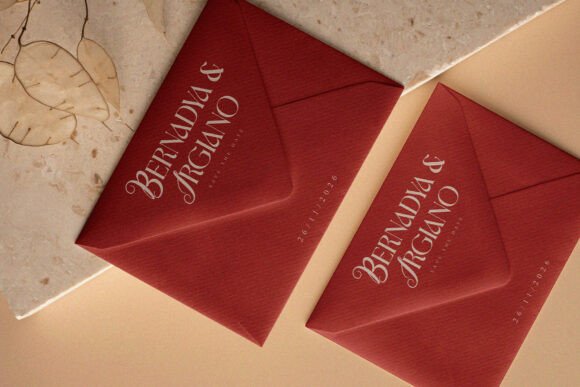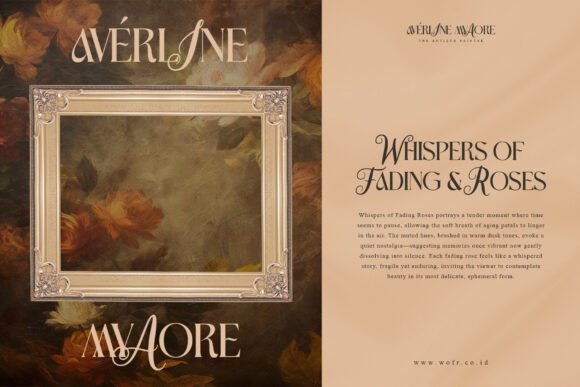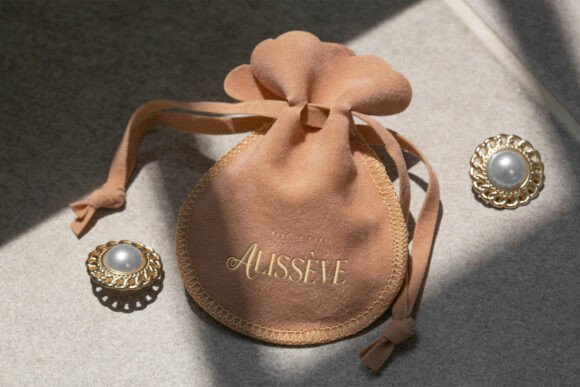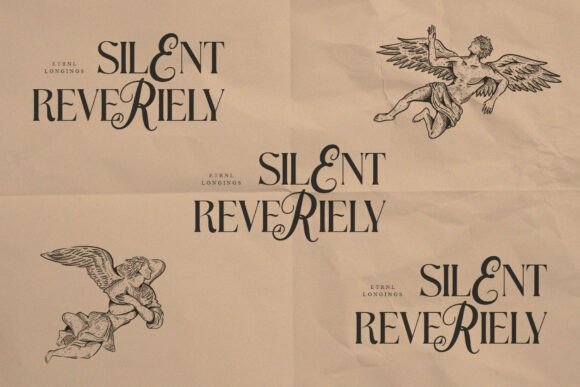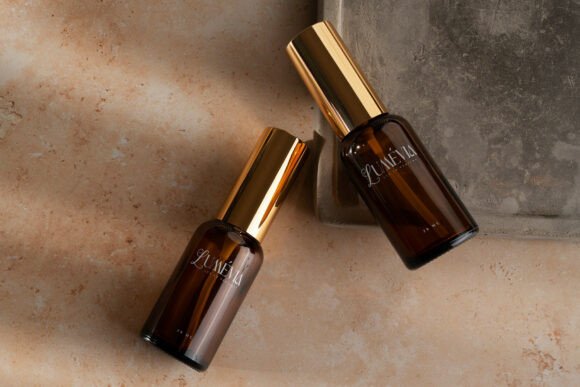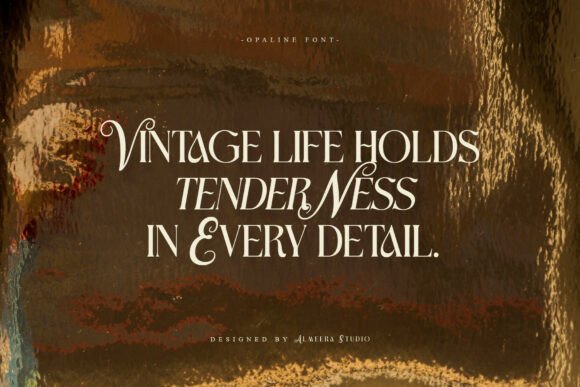
Introduction to Opaline Font
Opaline is a Display Serif Script that merges classic serif elegance with refined script flourishes.
Designed with delicate details, graceful contrast, and soft ornamental touches, Opaline becomes the perfect choice for luxury branding, premium packaging, artistic invitations, editorial titles, and any project that seeks a sophisticated and timeless aesthetic Each letter radiates charm and refinement, offering a high-end visual experience for designers who value elegance.